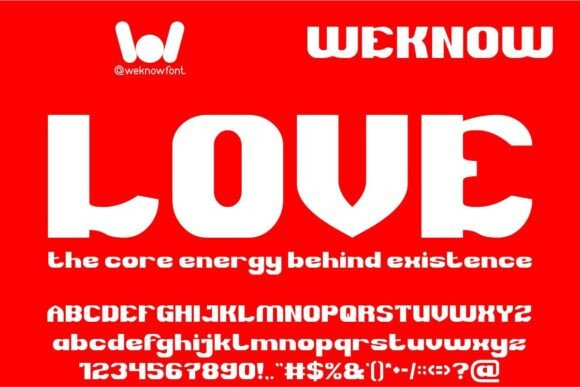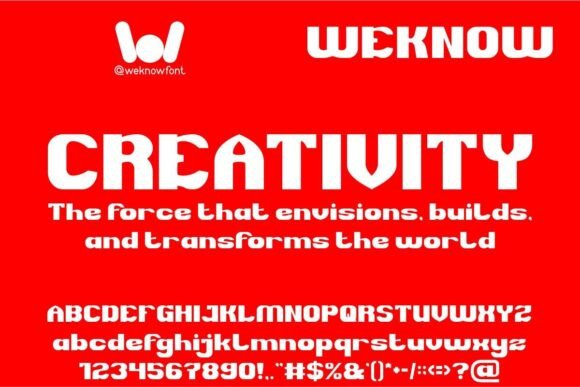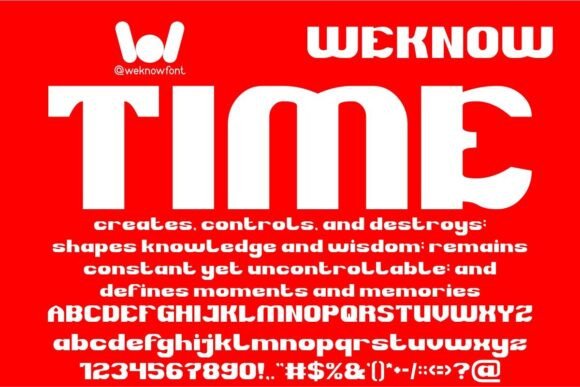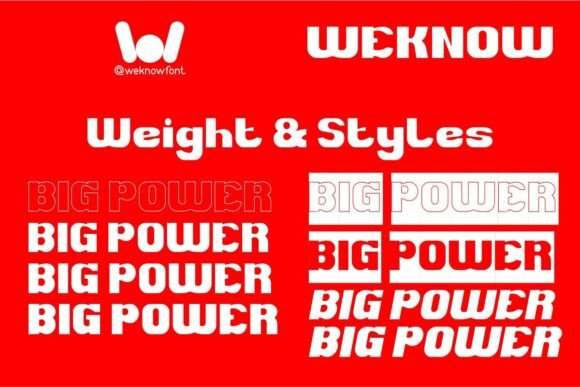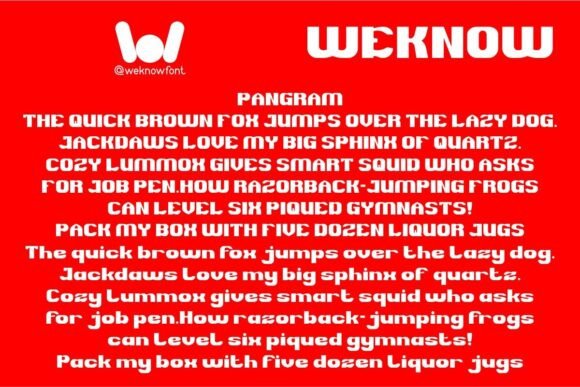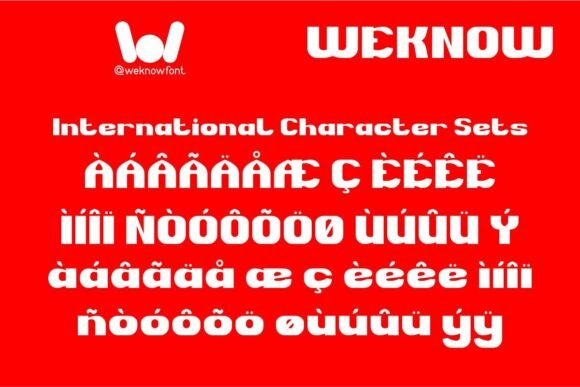
The Ultimate Game-Changer for Designers: Big Power Font
There’s nothing quite like the rush of adrenaline you feel when you’re working on a design project and everything just clicks into place. You’ve got your concept, your colors, and your typography – but then, it hits you: the perfect font that elevates your entire design from meh to mesmerizing. For designers, this is a moment of pure magic.
Enter the Big Power Font, a dynamic sans-serif display font designed to take your creative projects to the next level. Whether you’re crafting bold headlines, branding a new company, or designing a captivating magazine spread, Big Power Font is the perfect ally. Its streamlined character ensures effortless readability, making it an invaluable asset for designers who demand the best.
Big Power Font Key Features
- Unique Characteristic: Big Power Font features a unique blend of modern and classic design elements, creating a striking visual impact.
Designer Review: Big Power Font
I recently had the chance to work with the Big Power Font, and I’m here to share my honest thoughts.
- The font’s bold and powerful feel is perfect for titles and headings, adding a sense of drama and energy to any design.
- The font’s customizations options are extensive, allowing for a high degree of control over the final result.
- The font’s compatibility with various platforms and devices is seamless, ensuring a consistent look across different environments.
- The font’s readability can be compromised at smaller font sizes, which may lead to user frustration.
- The font’s lack of ligatures and contextual alternates may affect its performance in certain situations.
- The font’s weight and style options may feel limited compared to other fonts in its class.
While Big Power Font has its strengths, its limitations prevent it from being a top choice for me. The font’s bold and powerful feel is undeniable, but its readability issues and limited customization options hold it back. I would recommend it for specific use cases where its unique style is a perfect fit, but for general use, I’d opt for a more versatile font.
Tips for Getting the Most Out of Big Power Font
Use the Big Power Font to draw attention to important text, such as headings or titles.
– Pair it with other bold fonts to create a striking visual effect.
– Use it sparingly to avoid overwhelming the design.
The Big Power Font is commonly used in:
– Headings and titles
– Promotional materials, such as posters and flyers
– Business cards and resumes
Alternatives to Big Power Font
Playfair Display is an elegant, high-end font that exudes sophistication and luxury. It’s perfect for creating a sense of refinement and culture. When to use: Luxury branding, high-end products, and formal invitations. Compared to Big Power Font, Playfair Display is more refined and less loud, making it suitable for situations where you want to convey elegance and sophistication.
Montserrat is a modern, sans-serif font that’s highly legible and versatile. It’s great for creating a sense of urbanity and modernity. When to use: Modern branding, tech startups, and urban-themed projects. Compared to Big Power Font, Montserrat is more subtle and less attention-seeking, making it suitable for situations where you want to convey a sense of modernity and professionalism.